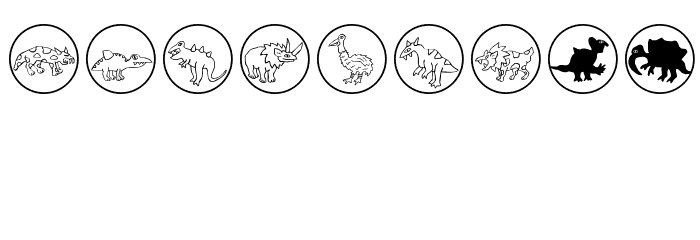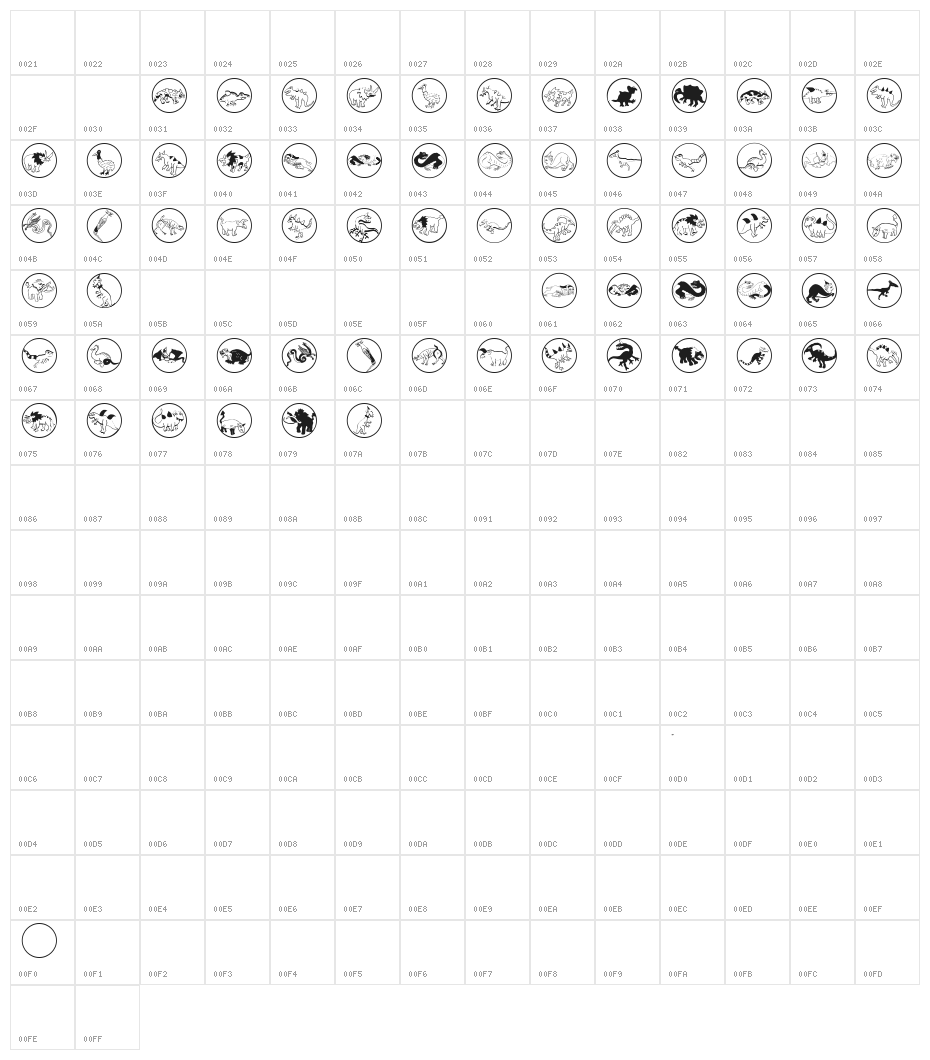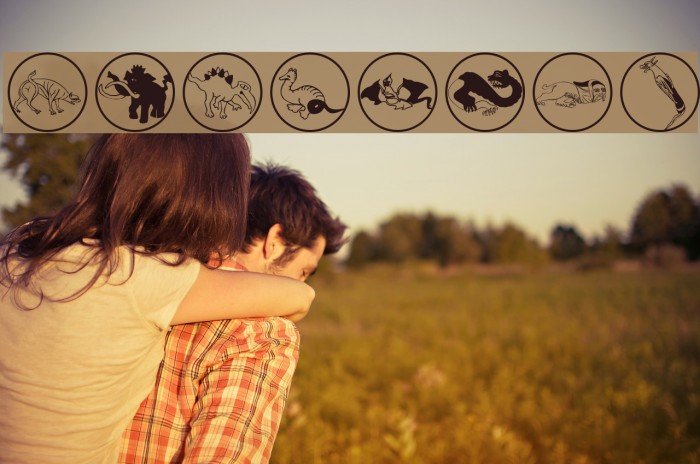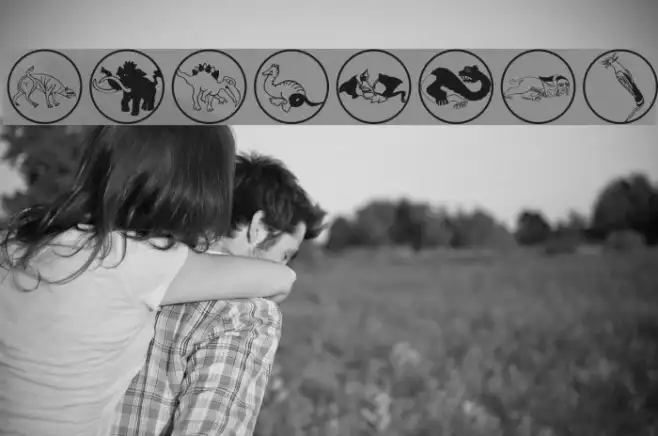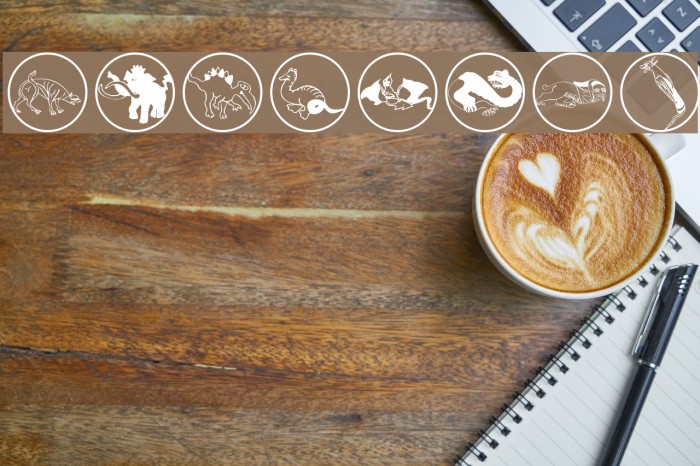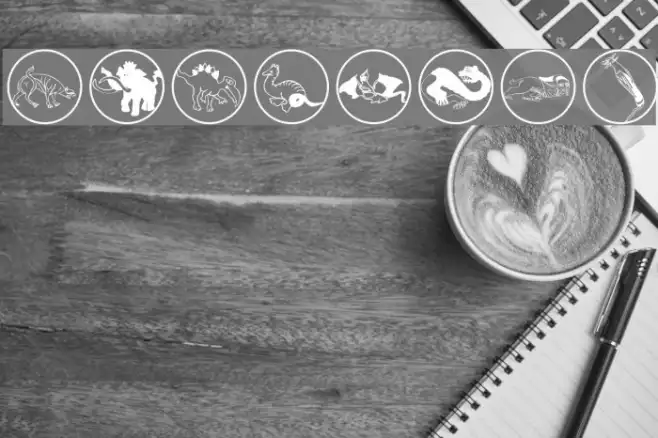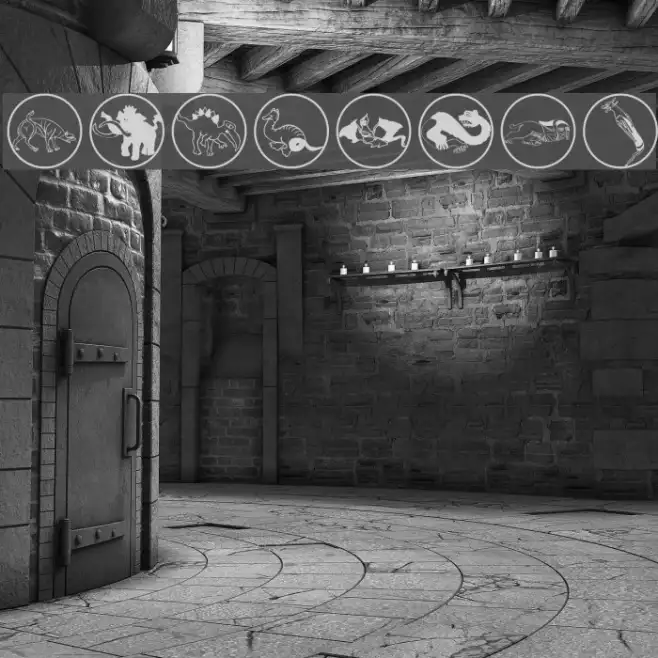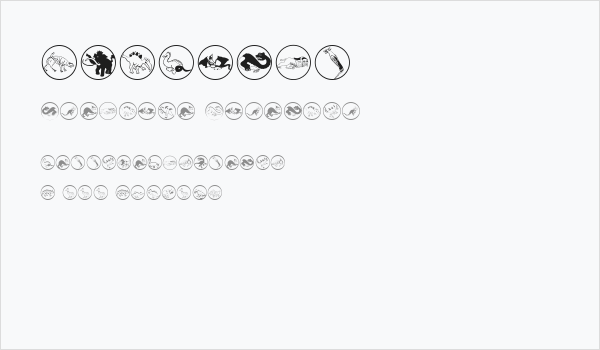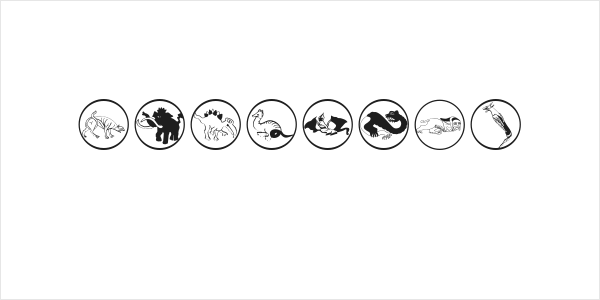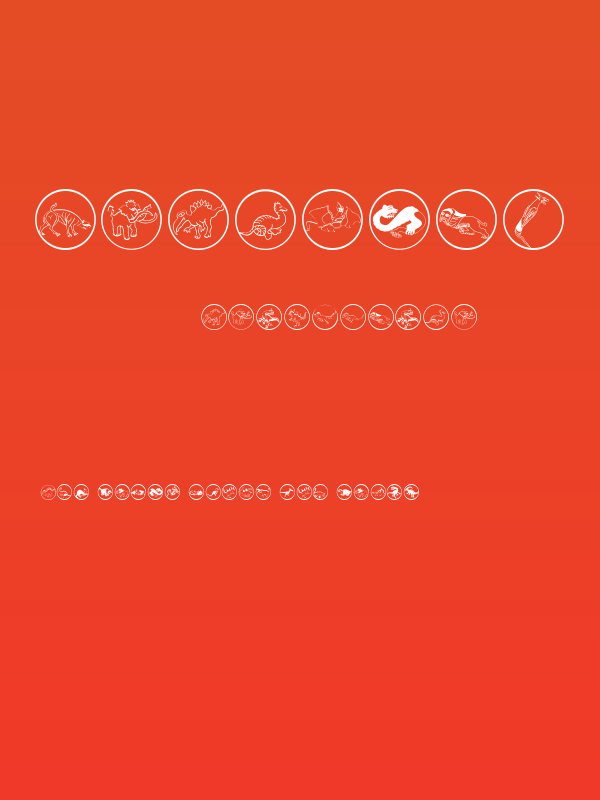
Mythical Font
Mythical Description
A decorative display typeface featuring hand-drawn mythical creatures and animals inside circular frames, with each character represented by a unique illustration rather than traditional letterforms.
| Overall Style | Decorative, Whimsical, Playful |
| Use Case | Logos, Headlines, Posters, Themed Graphics |
| Proposed Projects | ChildrenΓ’β¬β’s books, fantasy game titles, themed party invitations, educational posters, creative branding. |